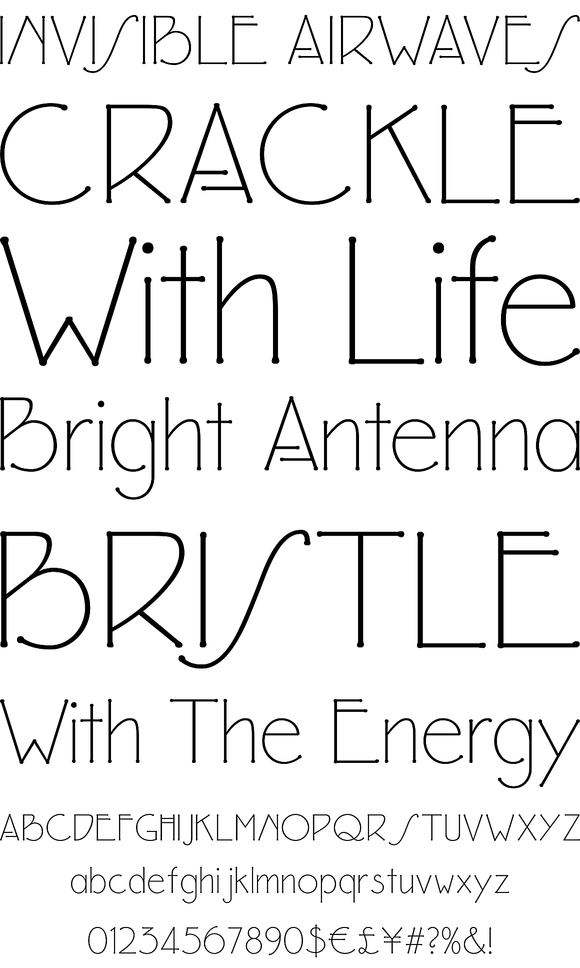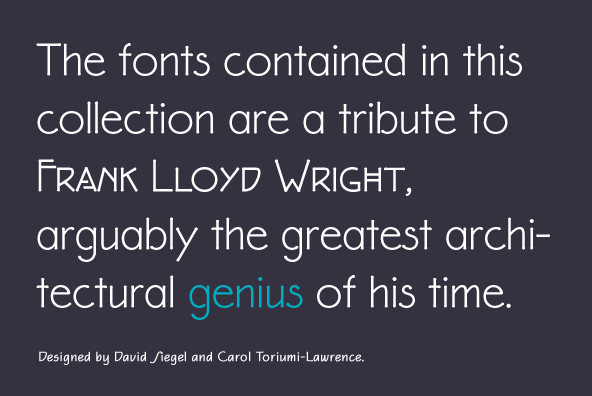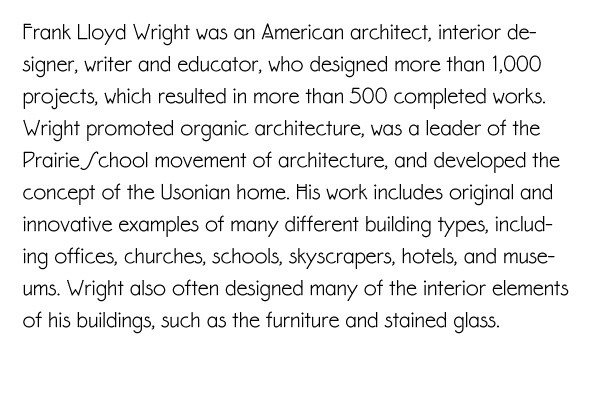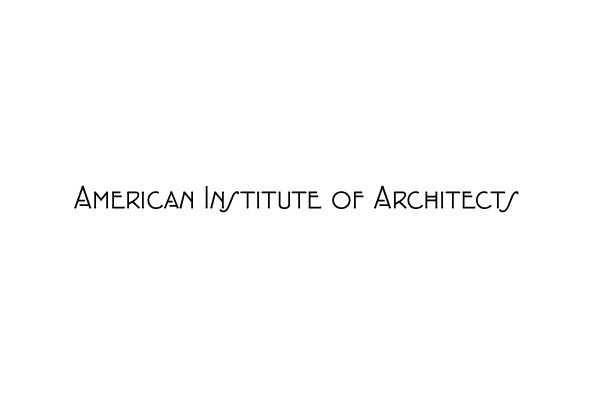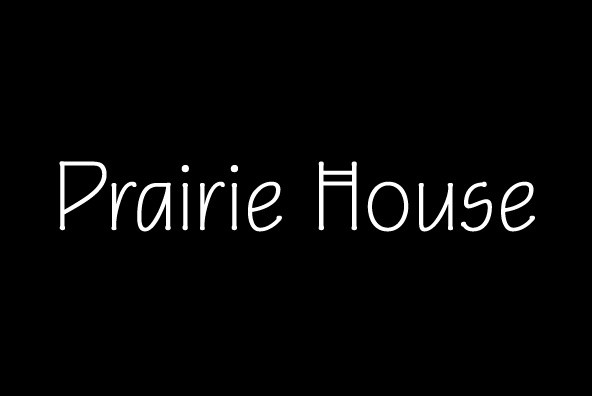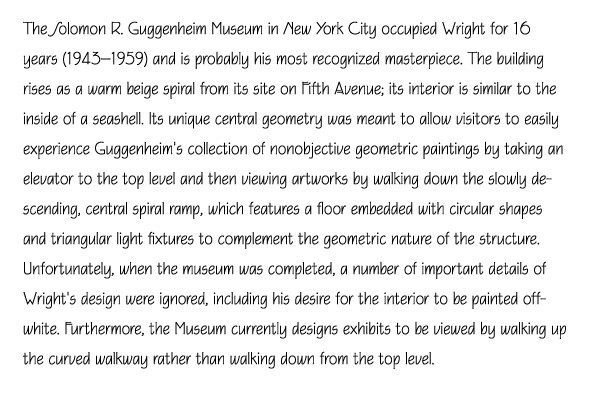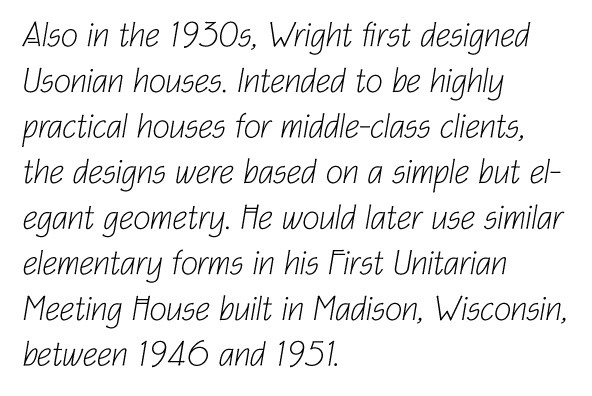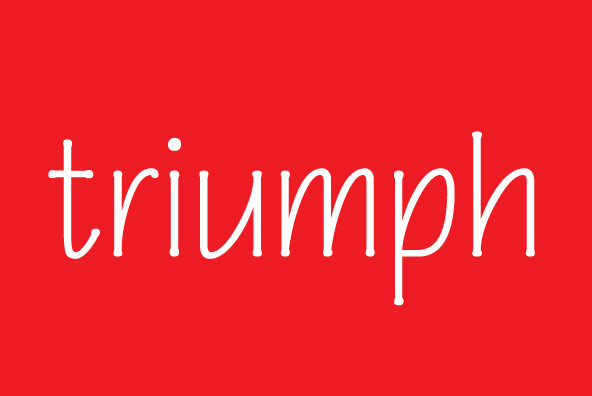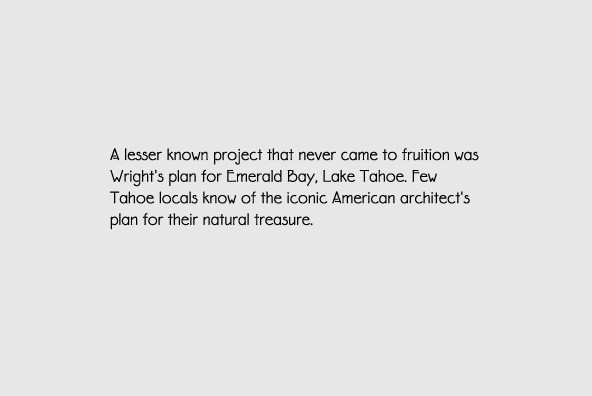
P22 Eaglefeather Family
Foundry: P22 Type Foundry
The fonts contained in this collection are a tribute to Frank Lloyd Wright, arguably the greatest architectural genius of his time. Wright produced a vast body of work that defined and redefined American architecture. His talent extended into the creation of some 1,200 designs, and the authoring of 20 books, as well as hundreds of articles, letters, and speeches. Wright's brilliance as a technical innovator inspired this handsome and distinctive typeface, Eaglefeather®, for your computer.
The Eaglefeather® typeface family was designed by David Siegel and Carol Toriumi-Lawrence, and adapted from a design by Frank Lloyd Wright. Eaglerock Extras were adapted from Frank Lloyd Wright® designs by Carima El-Behairy for P22 type foundry. This Frank Lloyd Wright Collection™ product is authorized by the Frank Lloyd Wright Foundation, Taliesin West, Scottsdale, Arizona. A portion of the sales supports the conservation and education programs of the Foundation.